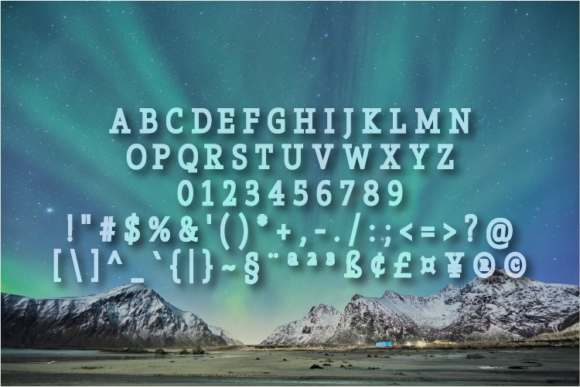
Introducing Damonte Font: Elevate Your Designs with Elegance and Sophistication
In the world of typography, fonts play a crucial role in bringing designs to life. A well-crafted font can elevate a design from ordinary to extraordinary, conveying the perfect tone and aesthetic. Meet Damonte Font, a stunning, modern serif font that is poised to revolutionize your design endeavors. With its exquisitely balanced blend of smooth and sharp elements, Damonte Font is the perfect complement to any design need.
Unparalleled Elegance: The Characteristics of Damonte Font
Damonte Font boasts an undeniable air of sophistication, making it an ideal choice for designers and crafters seeking to infuse their work with elegance. This fancy serif font features:
- Exquisite Letterforms: Damonte Font’s letterforms are meticulously crafted, showcasing a perfect harmony of smooth curves and sharp lines. This thoughtful design ensures that each character is not only aesthetically pleasing but also highly legible.
- Balanced Contrast: The font’s expertly balanced contrast between thick and thin strokes creates a visually appealing effect, adding depth and dimension to your designs.
- Versatile Style: Damonte Font’s modern serif design makes it an incredibly versatile choice, suitable for a wide range of applications, from luxury branding and advertising to packaging and digital media.
Why Choose Damonte Font for Your Design Projects?
With Damonte Font, you can:
- Elevate Your Brand: Instantly elevate your brand’s visual identity with a sophisticated font that exudes refinement and poise.
- Enhance Readability: Ensure that your message is conveyed clearly and effectively, thanks to Damonte Font’s exceptional legibility.
- Stand Out from the Crowd: Distinguish your designs from the competition with a unique and stylish font that is sure to leave a lasting impression.
Damonte Font is an excellent addition to any designer’s or crafter’s toolkit. Whether you’re:
- Creating Print Materials: Use Damonte Font to add a touch of sophistication to your brochures, posters, and business cards.
- Designing Digital Content: Elevate your website, social media, or email marketing campaigns with a font that is optimized for digital use.
- Crafting Artisanal Products: Add a personal touch to your handmade products, such as wedding invitations, packaging, or labels, with Damonte Font’s elegant style.
In conclusion, Damonte Font is a game-changing addition to the world of typography. Its expertly crafted design, versatility, and exceptional legibility make it an indispensable resource for designers and crafters seeking to elevate their work. Experience the sophistication and elegance of Damonte Font today and discover a new world of design possibilities.